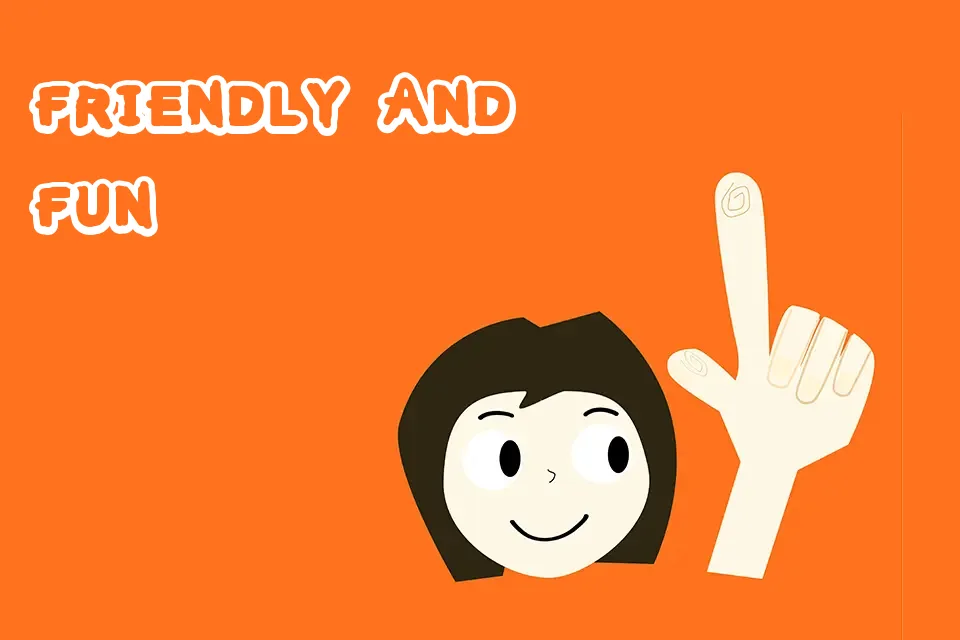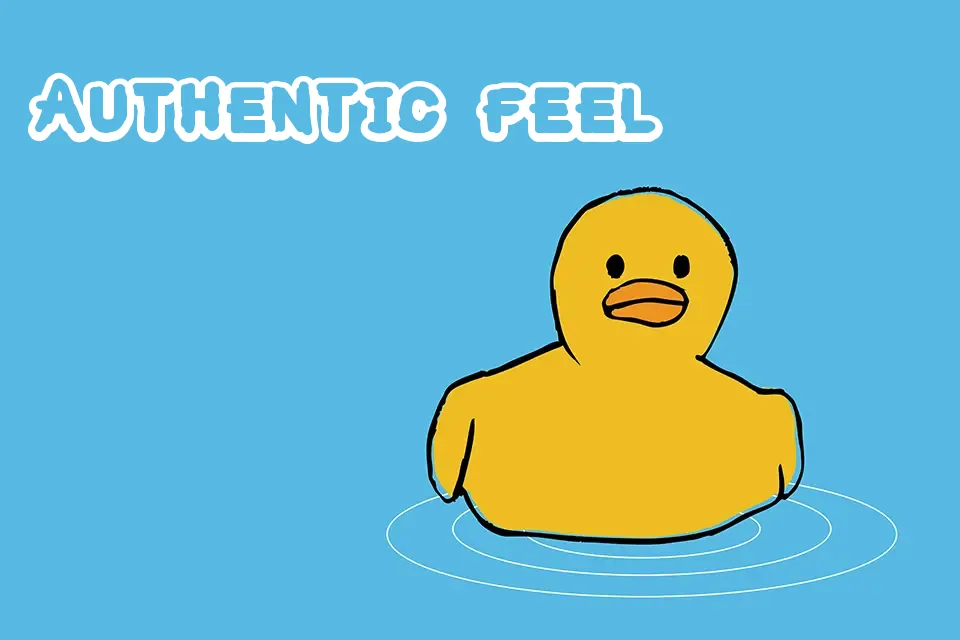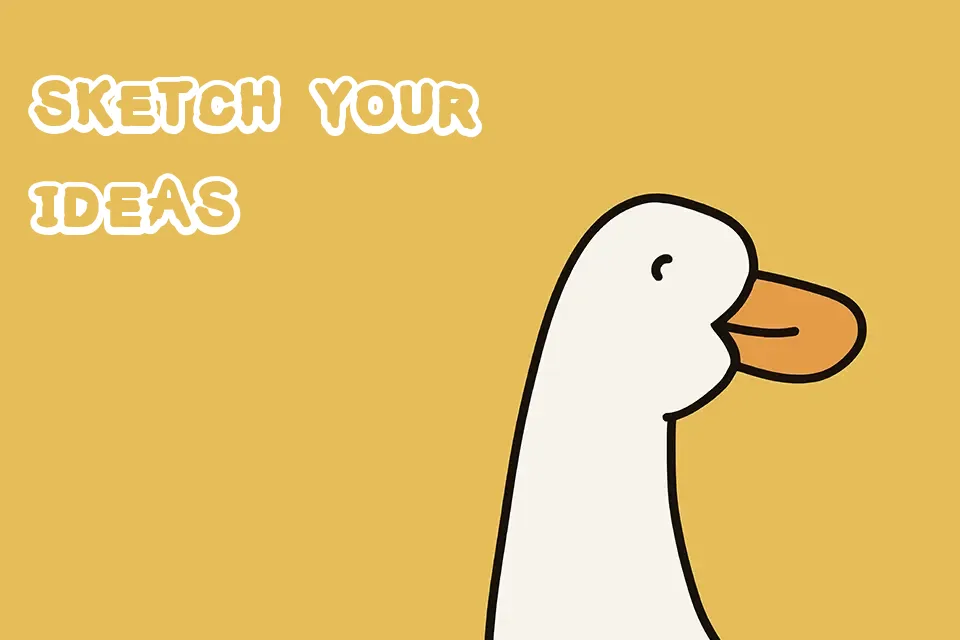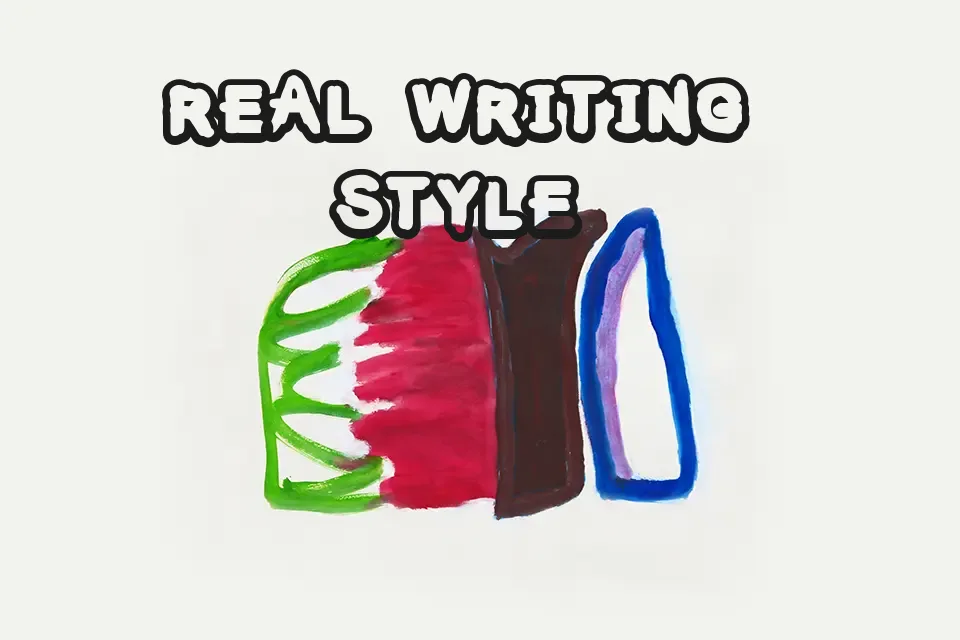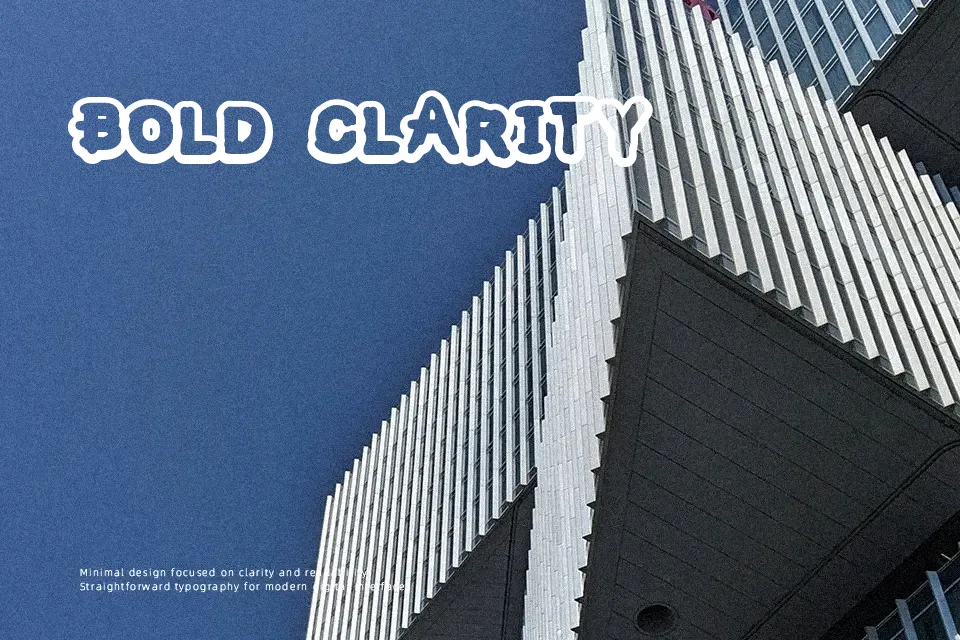
The Kids Mraker Font
The Kids Mraker Font features unrefined, childlike lettering constructed from bold, consistent marker strokes with softly rounded terminals. Uneven baselines and casual character proportions deliver a bouncy rhythm, while generous internal spacing prevents compact letters from colliding in brief titles. Basic Latin uppercase, lowercase, and numerals exhibit an organic, hand-drawn quality that reads clearly in display sizes yet begins to degrade when reduced. The typeface works nicely for toy packaging and playground signage, though the irregular contours become distracting throughout dense, multi-line paragraph reading.
Best For: children’s book covers, toy packaging labels, classroom poster headlines, youth event banners
Not Ideal For: continuous editorial text, legal documents, dense tabular spreadsheets, compact mobile interfaces
Perfect for headline, kids, and packaging, with a cute and comic style.